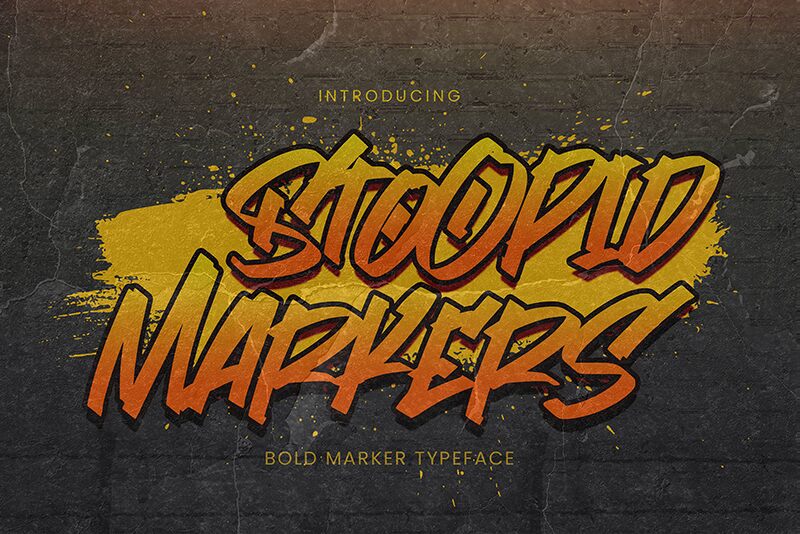
Stoopid Markers
Unleash the raw energy and street-savvy aesthetics of Stoopid Markers, a graffiti font that brings the rebellious spirit of urban artistry to your fingertips. Crafted by the innovative Gassstype, this semi-light typeface is a tribute to the quick strokes and fluid dynamics of marker tags found in cityscapes around the globe.
With its Modern Bold Market Typeface design, Stoopid Markers embodies an authentic coolness that can only come from a font written casually with Procreate before being meticulously traced into vector format. The care infused into each character ensures your creative projects will resonate with a natural look that's both striking and original.
Ideal for branding, apparel design, or any project craving a touch of street cred, Stoopid Markers is not just a font—it's an attitude waiting to amplify your message.